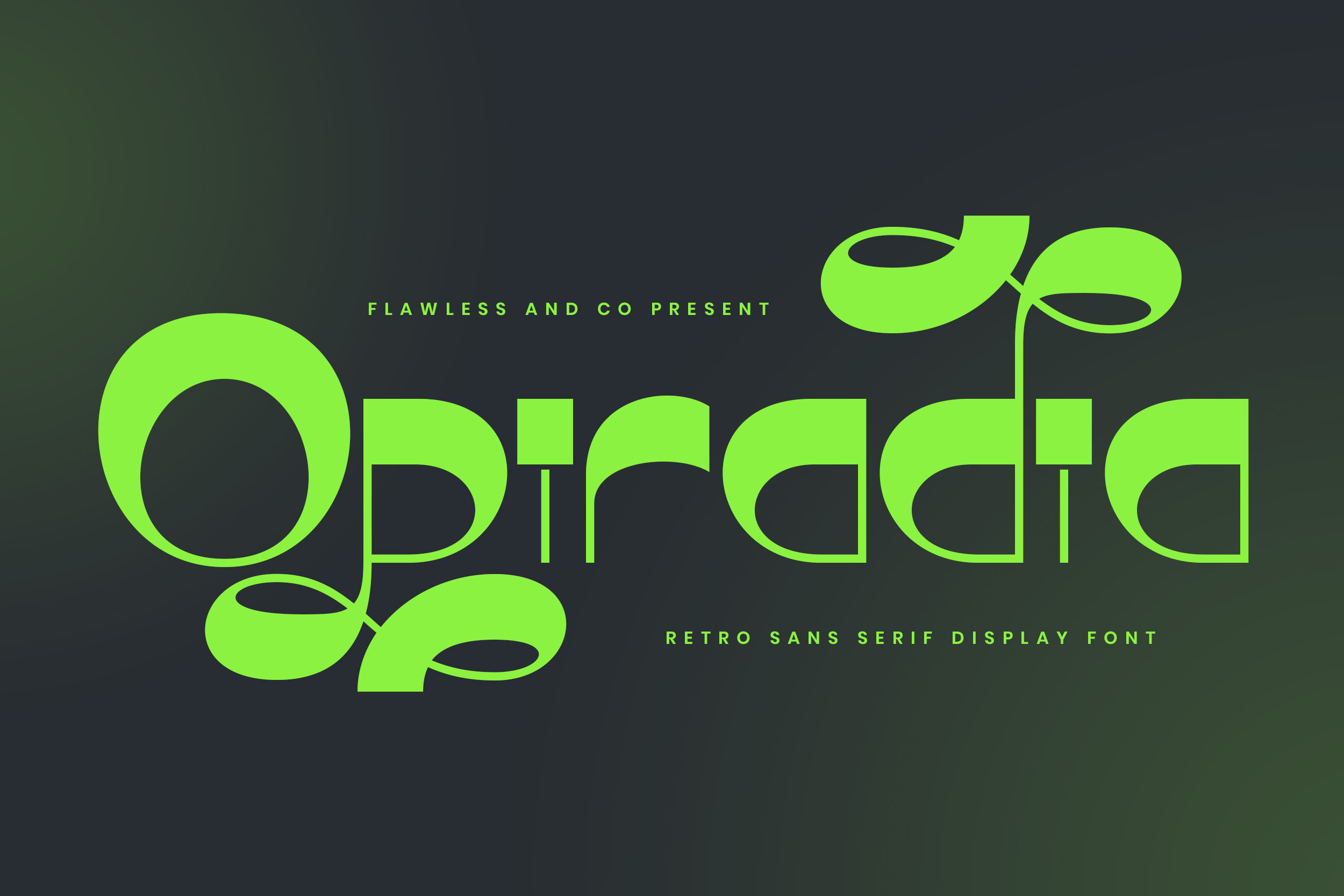
Opiradia - Retro Sans Serif Font
OPIRADIA – A Retro Bold Sans Serif
OPIRADIA is a retro-inspired sans serif typeface that blends nostalgic flair with modern confidence. With its playful curves, artistic swashes, and geometric balance, OPIRADIA brings a unique personality to logos, food branding, packaging, signage, and creative headlines. Whether you're crafting a vintage burger joint identity or a trendy apparel label, OPIRADIA delivers bold expression and visual charm. This display font adds a fresh twist to retro aesthetics, making your designs pop with style and originality.
Alternates & Ligatures
Who Should Use OPIRADIA?
OPIRADIA is perfect for creatives, designers, and brand developers who want to blend retro charm with bold modern aesthetics. Whether you're building a visual identity or crafting standout graphics, this font gives your design that extra edge.
This font is ideal for:
- Logo designers seeking a unique, retro-inspired sans serif
- Food and beverage brands wanting fun, nostalgic vibes
- Apparel labels and streetwear brands with bold character
- Packaging designers creating eye-catching product visuals
- Signage and display artists needing a font with strong presence
- Creatives working on vintage-style posters, ads, or branding
A Must-Have Font for Brand, Logo, and Gaming Creators and Designers OPIRADIA is more than just a font — it’s a powerful design asset tailored for creators who want their work to be bold, stylish, and unforgettable. Whether you're designing for edgy brands, immersive games, or standout logos, OPIRADIA delivers the impact your project deserves.
Why Choose OPIRADIA for Brand and Logo Projects? OPIRADIA combines bold character with sleek modernity, making it the perfect choice for brands and logos that demand attention. Its strong letterforms and display-ready style allow you to create a powerful identity that stands out across print, digital, and merchandise. Whether you're crafting a futuristic tech brand, a high-impact gaming logo, or a modern creative label, OPIRADIA brings clarity, strength, and a distinctive visual presence to every project.
Suitable For:
- Branding and logo design
- Gaming titles and esports visuals
- Tech startup identities and digital products
- Posters, headlines, and large-format display use
- Merchandise, apparel, and product packaging
- Social media graphics and streaming content